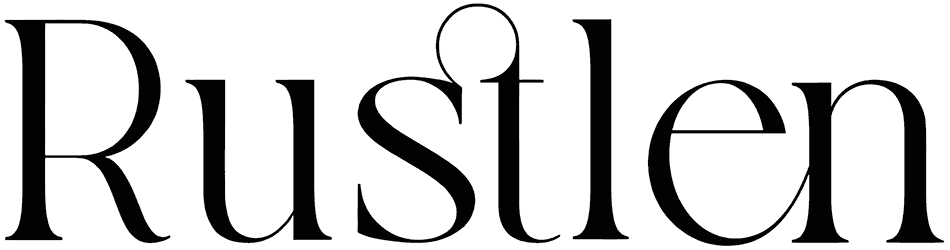
Rustlen Font
Effortlessly design a logo just as fascinating as Rustlen by borrowing its charming characters. This ligature font seems to be the only thing missing from your business cards, so that it can leave every client impressed from the first interaction.
With such a handsome look and a heavenly theme, this wonderful serif font can easily take your designs to the next level. So make sure to include it in labeling your handmade scarves, candles, or statues every chance you get.